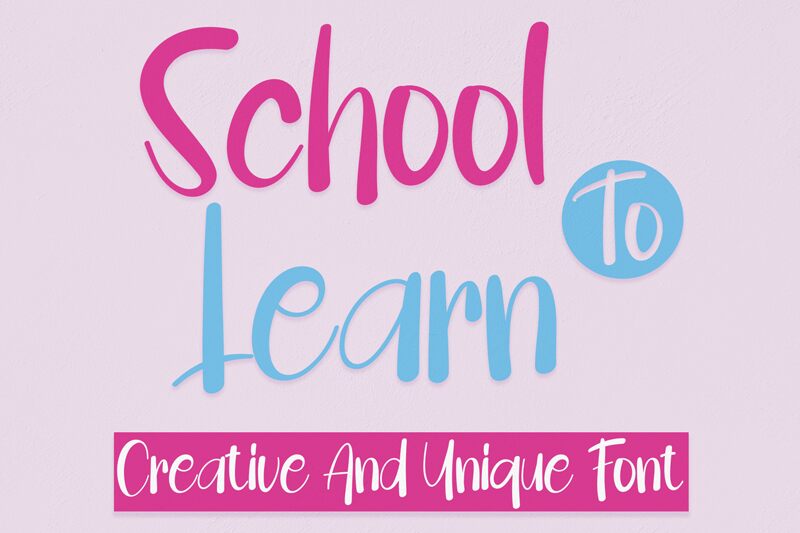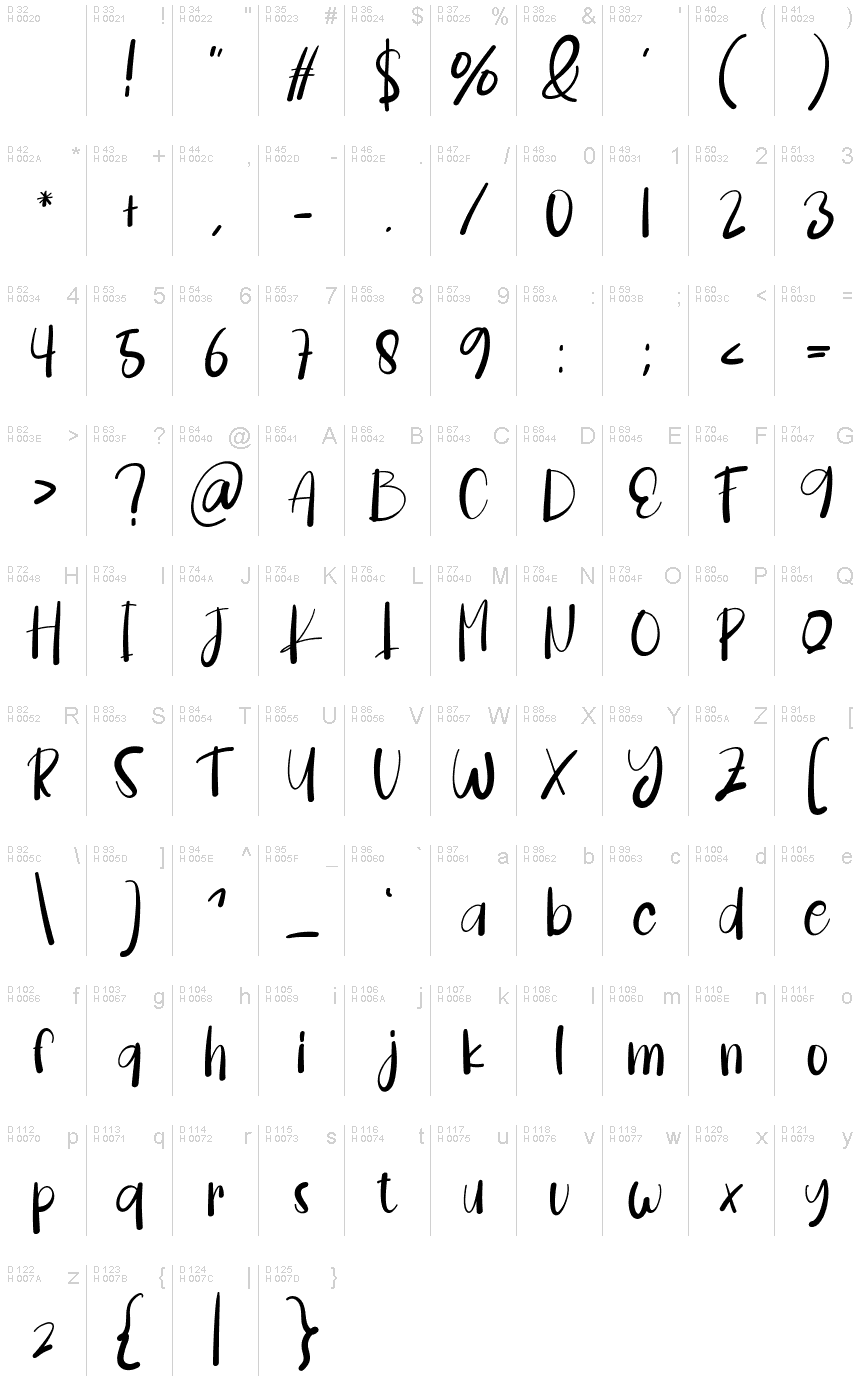
School To Learn
School to Learn font is a creative and unique script font designed by Gado Gado.
the latest style letters are perfect for wall displays, wedding invitations, social media post logos,
advertisements, product packaging, product designs, labels, photography, watermarks, invitations, stationery,
and any project that requires taste handwriting.